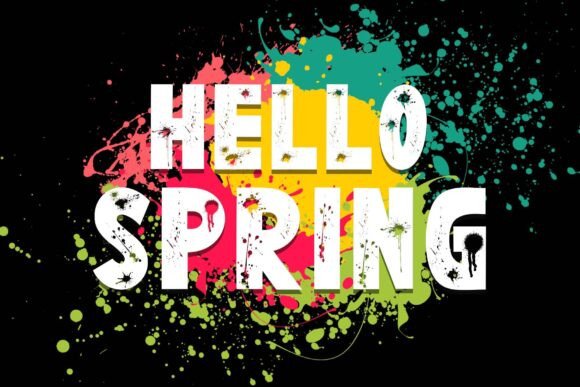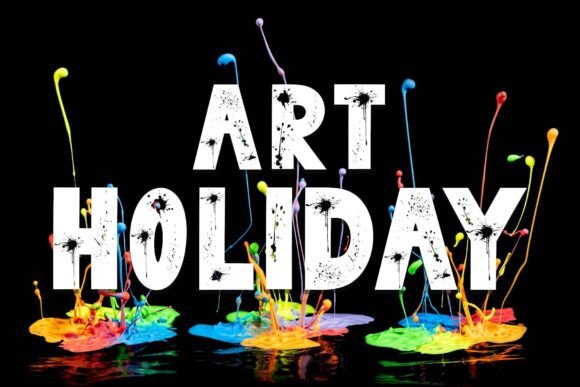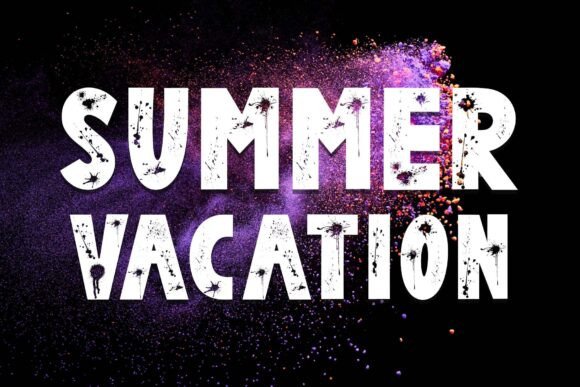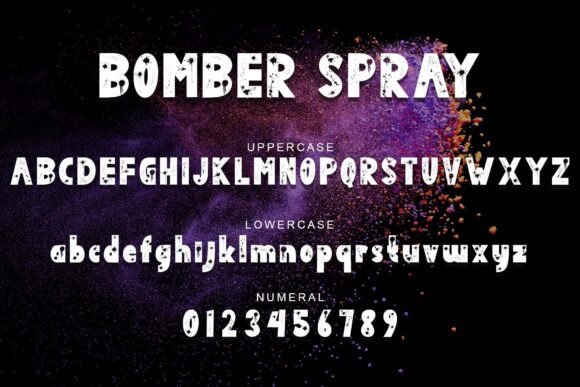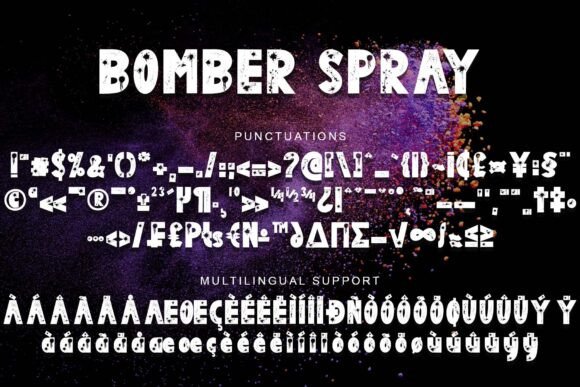
Bomber Spray Font: Unleash Your Creativity with a Bold Display Font
Are you looking for a font that can add a touch of street art attitude and urban edge to your designs? Look no further than Bomber Spray Font. This bold display font is perfect for designers and crafters who want to make a statement with their work. With its splattered ink textures and graffiti-inspired details, Bomber Spray Font brings energy, rebellion, and creativity to any design project.
What is Bomber Spray Font?
Bomber Spray Font is a unique and eye-catching font that is inspired by the raw energy of street art. Its bold and edgy design makes it perfect for posters, album covers, streetwear branding, event flyers, and anything that needs a bold visual punch. The font features splattered ink textures and graffiti-inspired details that give it a rebellious and creative vibe.
Key Features of Bomber Spray Font
- Bold and Edgy Design: Bomber Spray Font has a bold and edgy design that is perfect for making a statement.
- Splattered Ink Textures: The font features splattered ink textures that give it a raw and energetic feel.
- Graffiti-Inspired Details: The font includes graffiti-inspired details that add to its urban edge.
- Perfect for Bold Designs: Bomber Spray Font is perfect for posters, album covers, streetwear branding, event flyers, and anything that needs a bold visual punch.
Who Can Use Bomber Spray Font?
Bomber Spray Font is perfect for designers and crafters who want to add a touch of street art attitude to their work. It’s ideal for:
- Graphic Designers: Graphic designers can use Bomber Spray Font to create bold and eye-catching posters, flyers, and brochures.
- Streetwear Brands: Streetwear brands can use Bomber Spray Font to create bold and edgy branding that stands out.
- Artists and Illustrators: Artists and illustrators can use Bomber Spray Font to add a touch of urban edge to their work.
- Event Planners: Event planners can use Bomber Spray Font to create bold and eye-catching event flyers and posters.
How to Use Bomber Spray Font?
Using Bomber Spray Font is easy. Here are some tips:
- Pair it with a Simple Background: Pair Bomber Spray Font with a simple background to make it stand out.
- Use it for Headlines: Use Bomber Spray Font for headlines and titles to add a bold and edgy touch.
- Experiment with Colors: Experiment with different colors to find the perfect combination that works with your design.
Bomber Spray Font is a bold display font that is perfect for designers and crafters who want to add a touch of street art attitude to their work. With its splattered ink textures and graffiti-inspired details, this font brings energy, rebellion, and creativity to any design project. Whether you’re a graphic designer, streetwear brand, artist, or event planner, Bomber Spray Font is the perfect choice for making a statement.